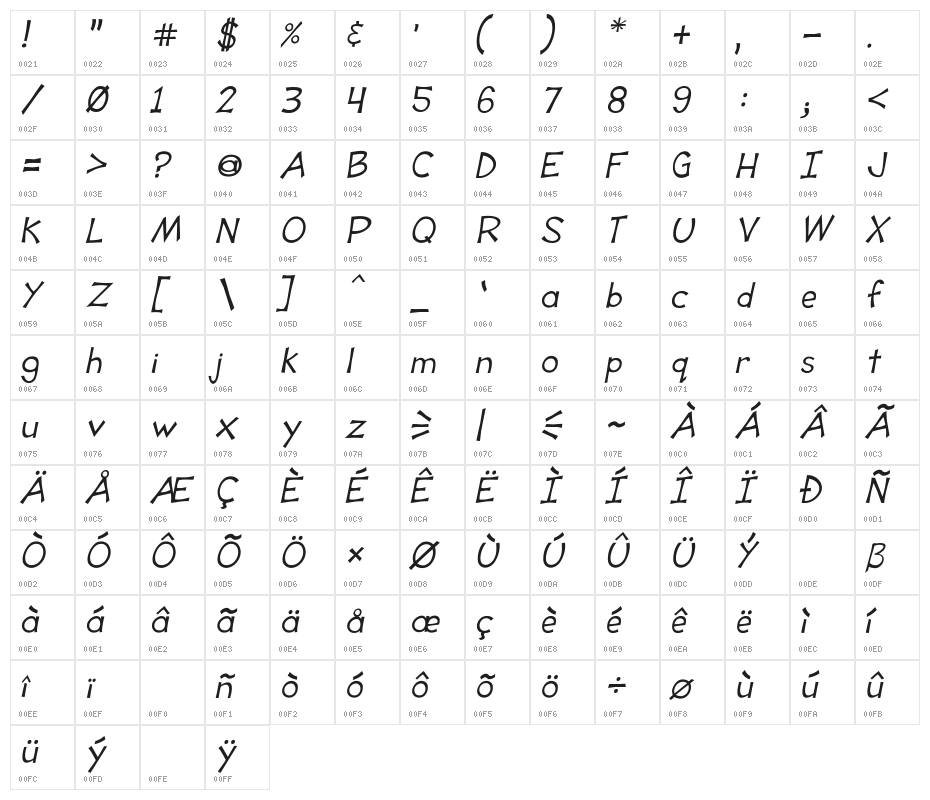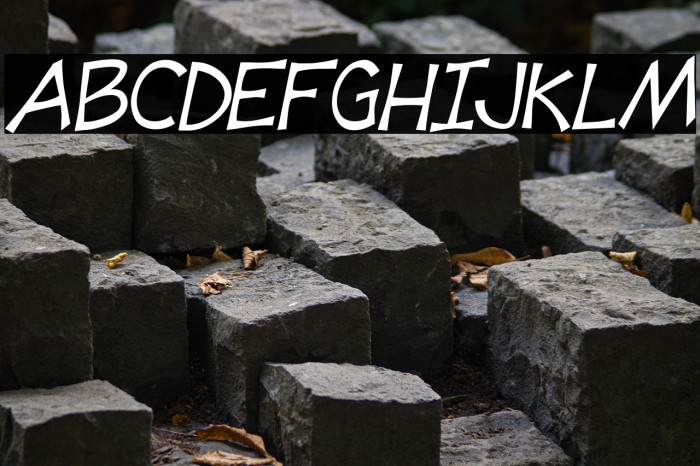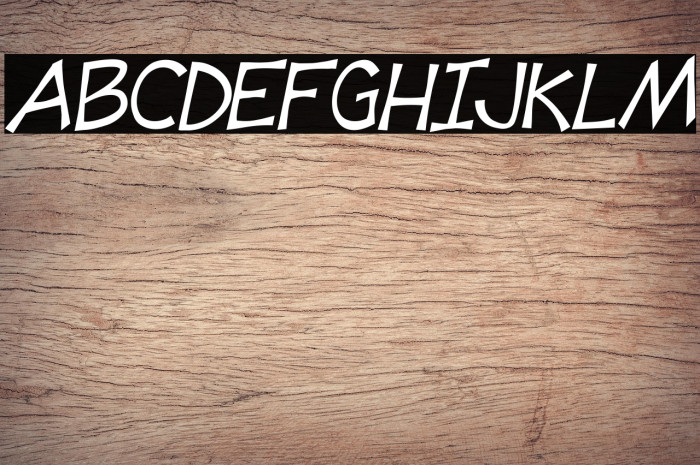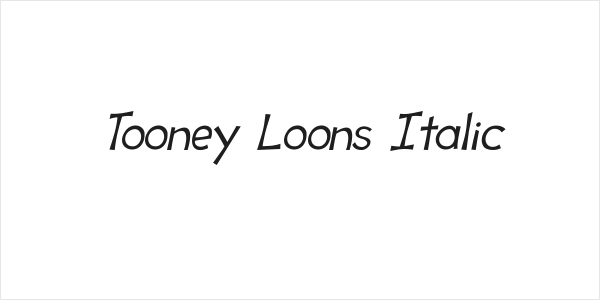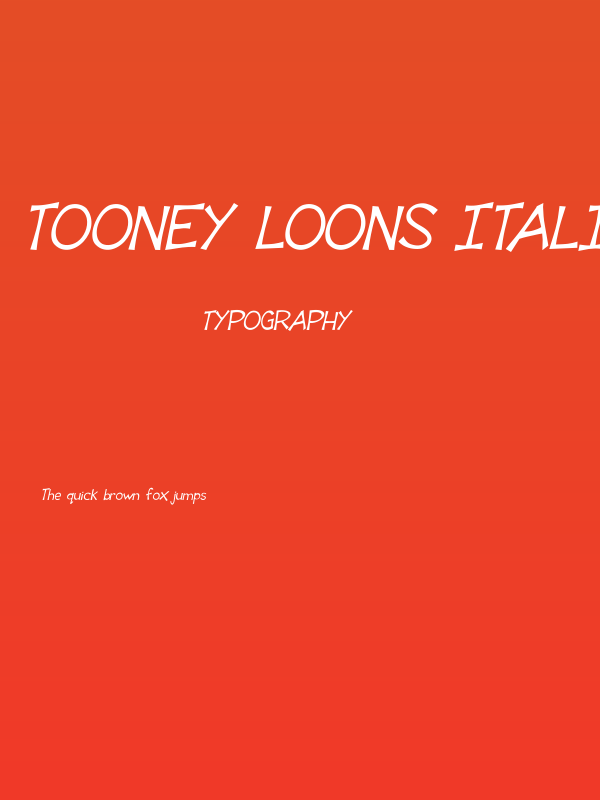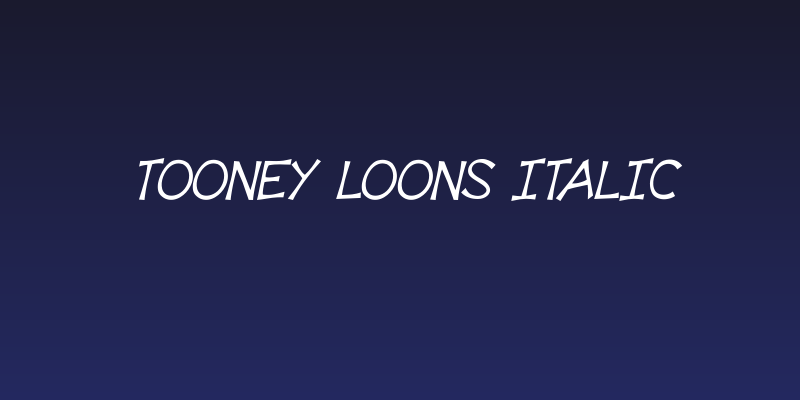
Tooney Loons Italic Font
Tooney Loons Italic Description
This playful and dynamic font features a whimsical, italicized style that gives it a lively and energetic appearance. The letters are slightly slanted, adding a sense of motion and fluidity. The characters are bold and have a hand-drawn quality, with uneven strokes that contribute to its informal and fun aesthetic. The font includes a full set of uppercase and lowercase letters, numerals, and a variety of special characters. Its unique style makes it suitable for projects that require a touch of creativity and personality.
| Proposed Projects | Ideal for children's books, comic strips, playful branding, and creative posters. |